If you like typefaces, if you like to play around with your fonts while other kids are off doing piano lessons, if you keep noticing the typefaces on the restaurant menu, you need to know about Identifont.
Identifont is the coolest font site on the web. You might not expect that when you first go there, because it has none of the luscious typography of sites like I Love Typography, Typographica or Typophile. But it’s got something no other typopgraphy site has.
Identifont, the brainchild of David Johnson-Davies was built around Artificial Intelligence (AI) software developed at the Massachusetts Institute of Technology, and launched in 2000. The site says it is the largest independent directory of typefaces on the internet. You can see by the updates that new type foundries are being added all the time.
Here’s what you’ll find at Identifont:
- Fonts by appearance—This is the heart and soul of Identifont. Through a series of simple, illustrated questions, the AI behind Identifont will help you figure out exactly what typeface is used on that book cover you really like. It takes an average of 15 questions to come to a conclusion, but I’ve found Identifont to be right most of the time I’ve used it. There’s really nothing else like it. Here’s a typical screen from the identifier, where I’m up to question #4:
- Fonts by name—Maybe you remember that the font you want has “park” in it, but that’s all you remember. No problem, because Identifont will call up every font it has that gives even a partial match. This is a lifesaver also.
- Fonts by similarity—Another terrific utility. Perhaps you want something like the stylish Park Avenue, but not quite. This is a task that could take time to visit font websites and look through pages of samples. Not with Identifont. In a few seconds I had located this lovely Tiamaria, a typeface I had never heard of. Perfect.
- Picture fonts—This will amaze you. Try entering anything here, like “dog” or “beach” and see what Identifont comes up with. It has such an enormous database of fonts it’s hard to stump it. Here’s one of the 18 fonts I got with a search on “balloon”:
- Designers—Want info on a typeface designer, including links to all their fonts? Just enter a full or partial name, and you have it.
- Publishers—A huge collection of type foundries, with links to all their typefaces on Identifont.
There’s also a small collection of free type fonts, with links to download locations, and listings of the most popular fonts on the site in the past week. In addition, there are links to two associated websites:
- Fontifier where you can turn your handwriting into a font
- Fontscape, an independent directory of typefaces organized into unusual and useful categories.
If you like fonts, set a timer before you surf over to Identifont, because it’s easy to spend way too much time running searches through their database and marvelling at the sheer variety of the fonts it will return.
Identifont, a great tool and a heck of a lot of fun for type lovers. Try it.
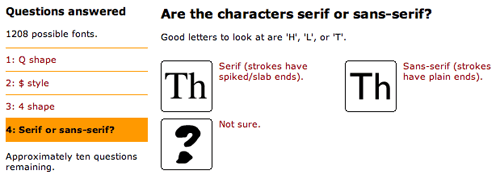
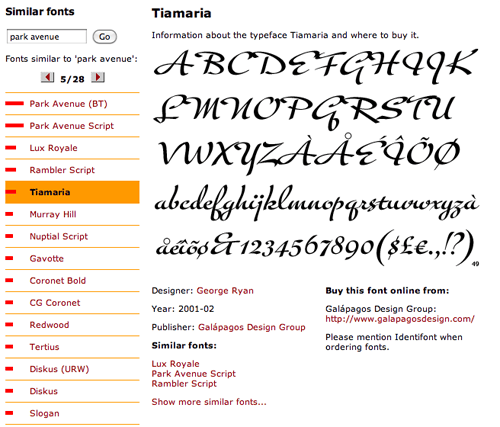
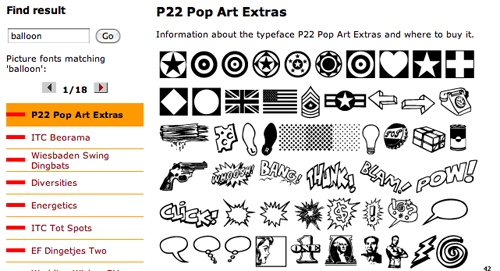
Identifont is useful, fun and addicting for a type addict like me.
I was surprised and disappointed that it could not find Karina — a typeface I got addicted to when I worked in advertising about 35 years ago. The art director I was paired with used it in a headline, and then I adopted it for my own freelance ads, letterheads, business cards and even note pads and tag sale signs.
After a little effort, I did find “ITC Korinna,” with the pregnant B, lucious curvy C, G, P and U, the turky-plump M, non-traditional N (which was great for my middle initial), cutesy Q, classy/classic W and probably the best-looking ampersand on the planet — which I fell in love with years ago.
I’ve been searching for Karina recently, but my search was misdirected. My aging mind was confused by Carina — my cover artist, and Karina — my portrait photographer at Sears.
Thanks for helping my to re-kindle a long-lost love.
(How many people can love a typeface?)
I look forward to a Identifont app for my Android smartphone. I’d like to be able to aim the lens at a book cover, magazine ad or a billboard, and have the phone instantly identify the typeface.
Michael, I’m glad you’ve been reunited with your long-lost (typeface) love. I remember Korinna quite well from the time it enjoyed a widespread popularity, got overused, then was abandoned. Apparently many more people than I ever imagined love typefaces, from the response I get when writing about typography. Who knew?
And on the Adroid front, you could just swap for an iPhone and use the helpful What the Font? app from Myfonts.com which does exactly what you imagine: shoot a photo with the iPhone camera of the type in question, and it runs a search on its server and returns all the possible matches. Truly a bit of mobile computing magic.